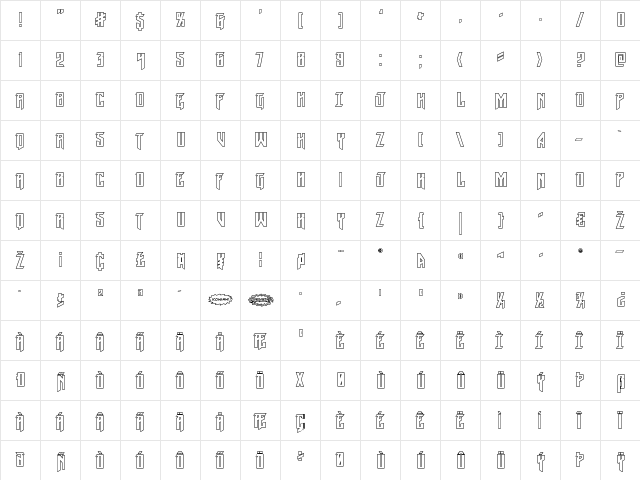
Winter Solstice Outline
Design Context for Winter Solstice Outline Typeface
Winter Solstice Outline is built around its visual character rather than neutral utility — its distinctive forms are designed to make an impression at display sizes.
Font Pairing: Pair with a clean neutral sans-serif for body copy to let Winter Solstice Outline's character lead without overwhelming the composition.
Pro Tip: Use Winter Solstice Outline exclusively at display sizes — it was designed to be seen, not read at length. Let a neutral companion handle body copy.